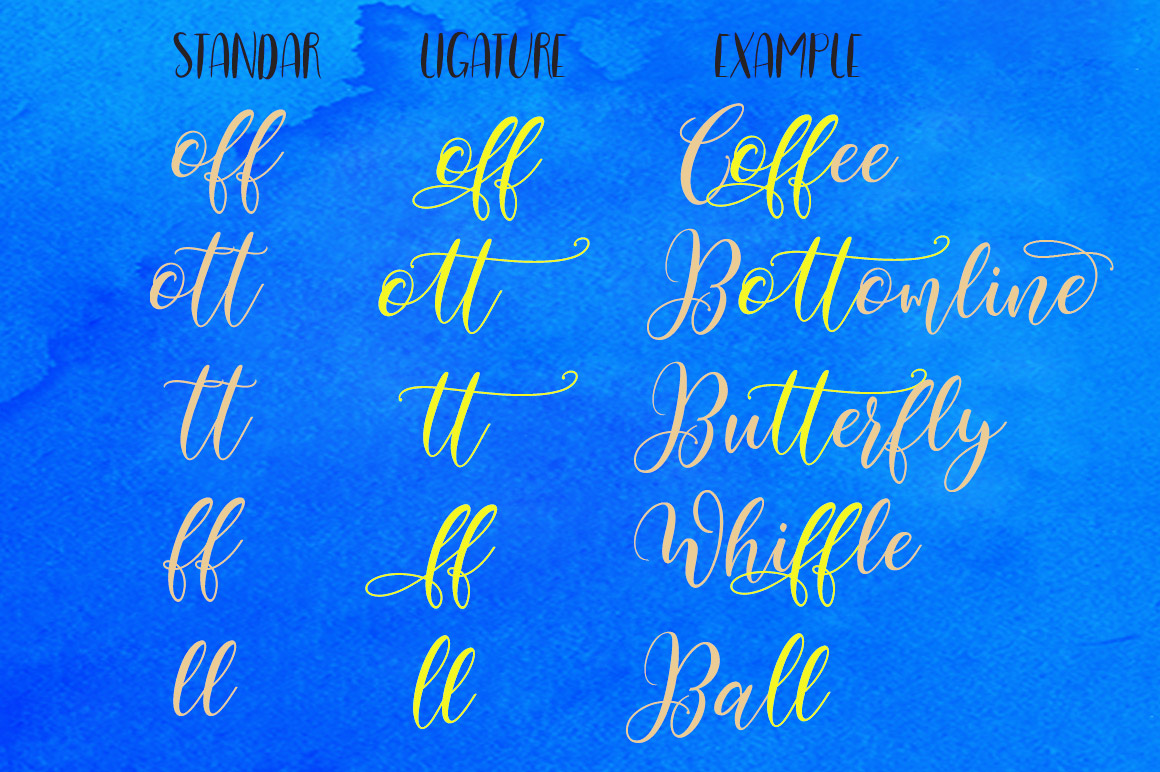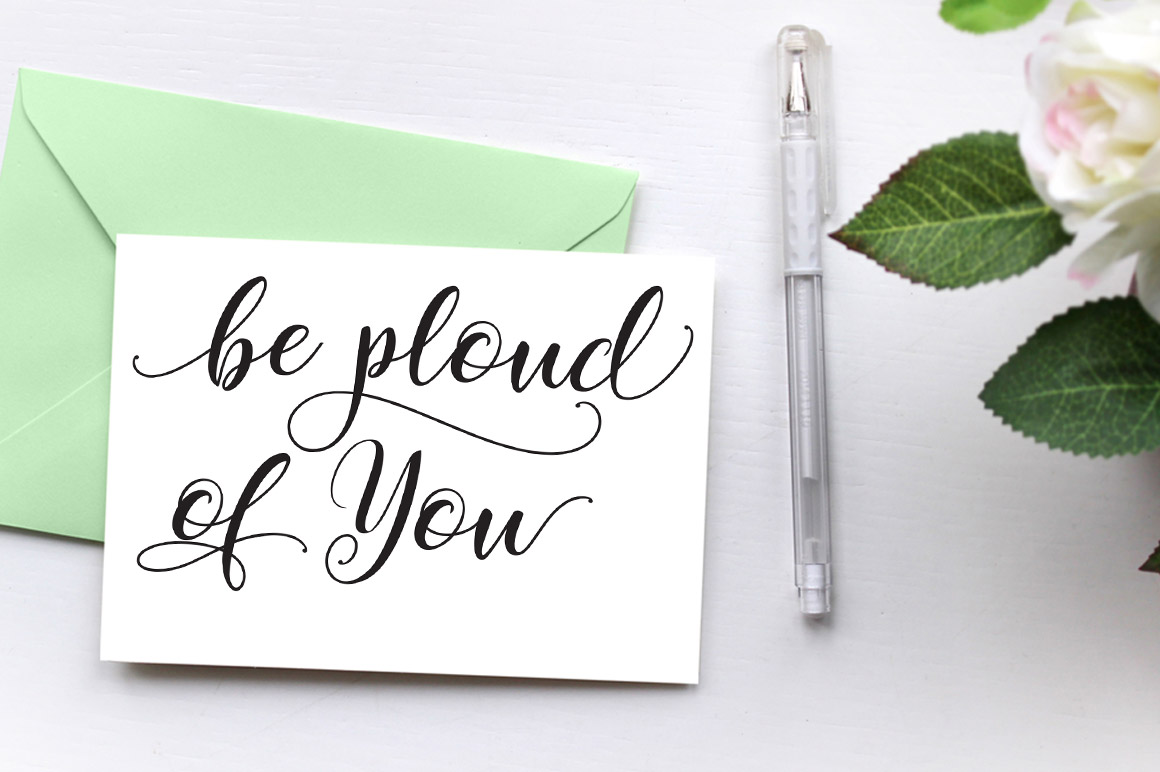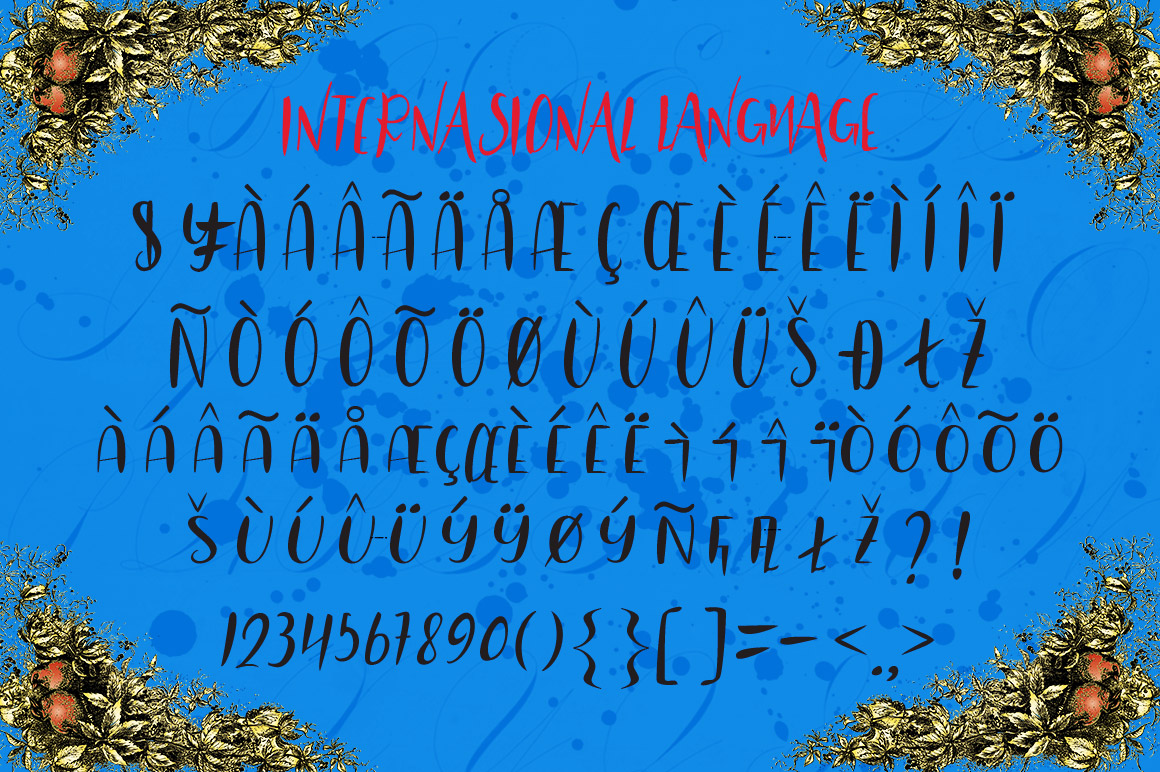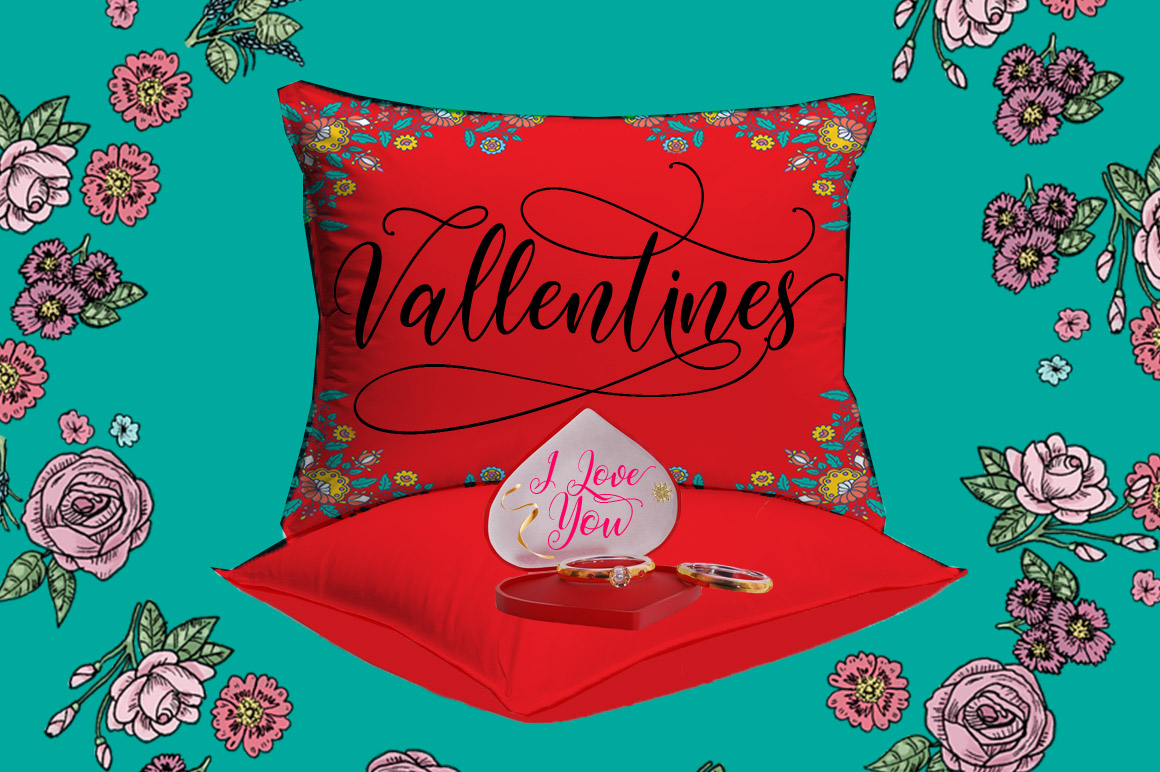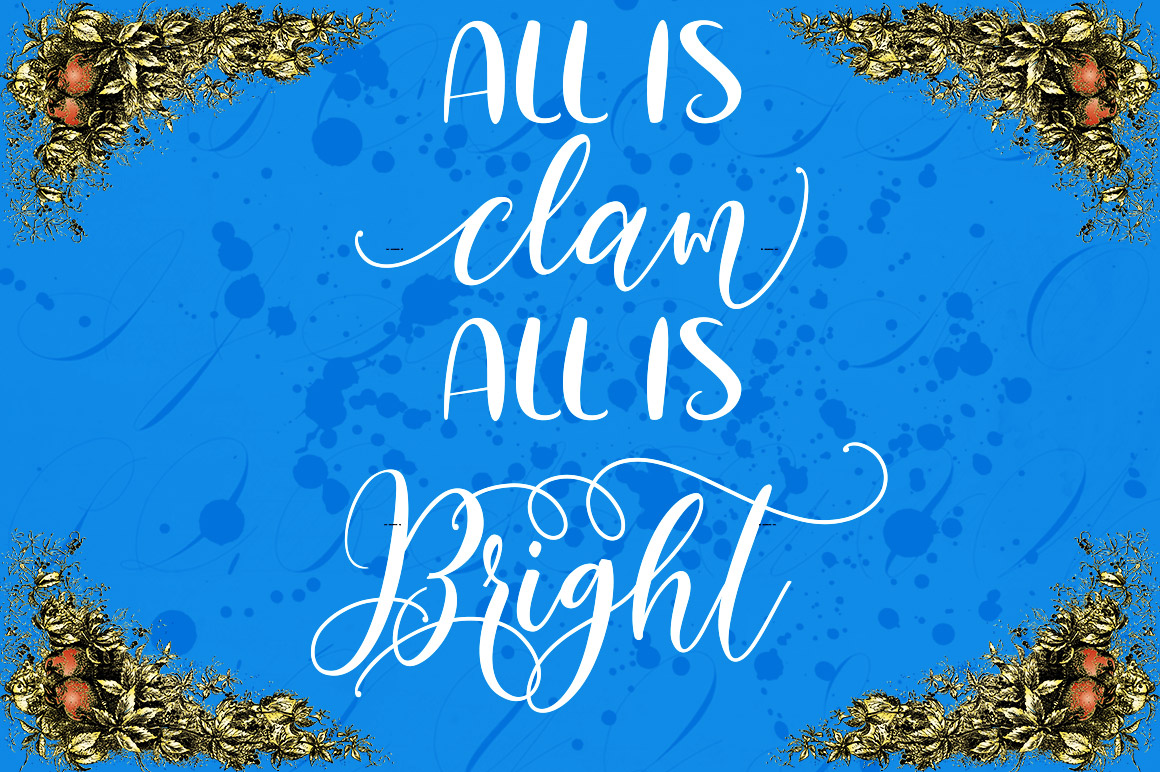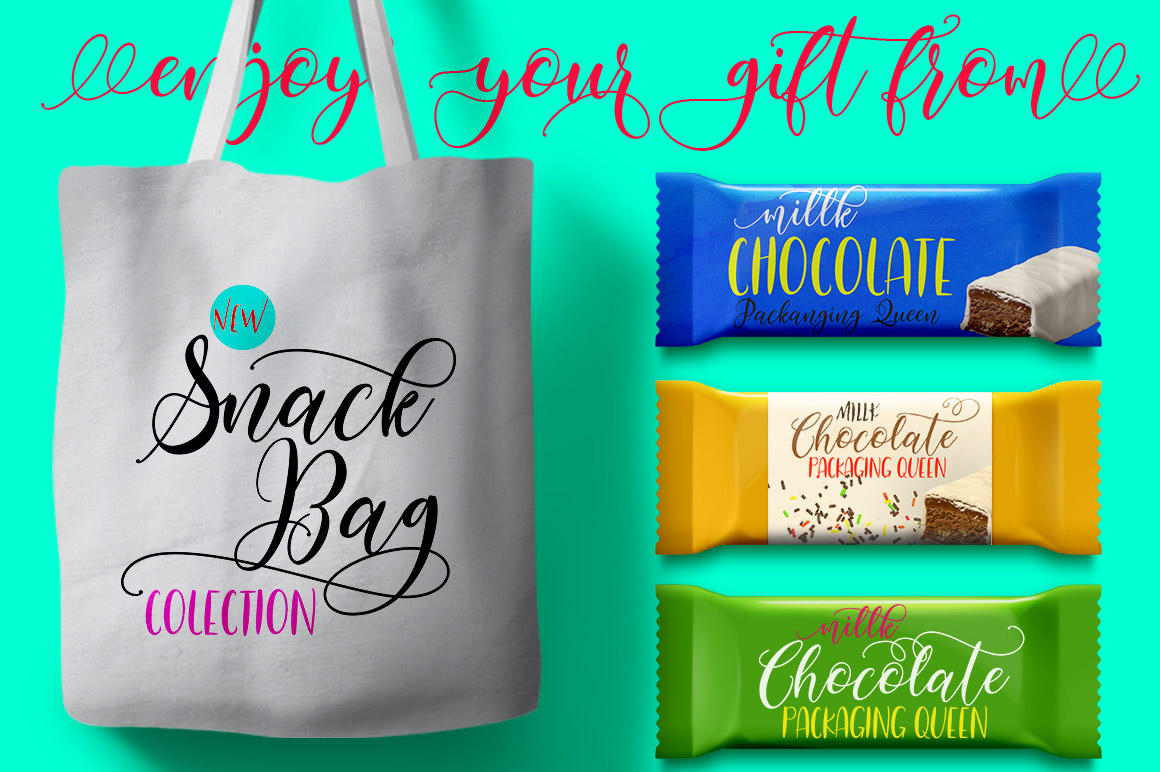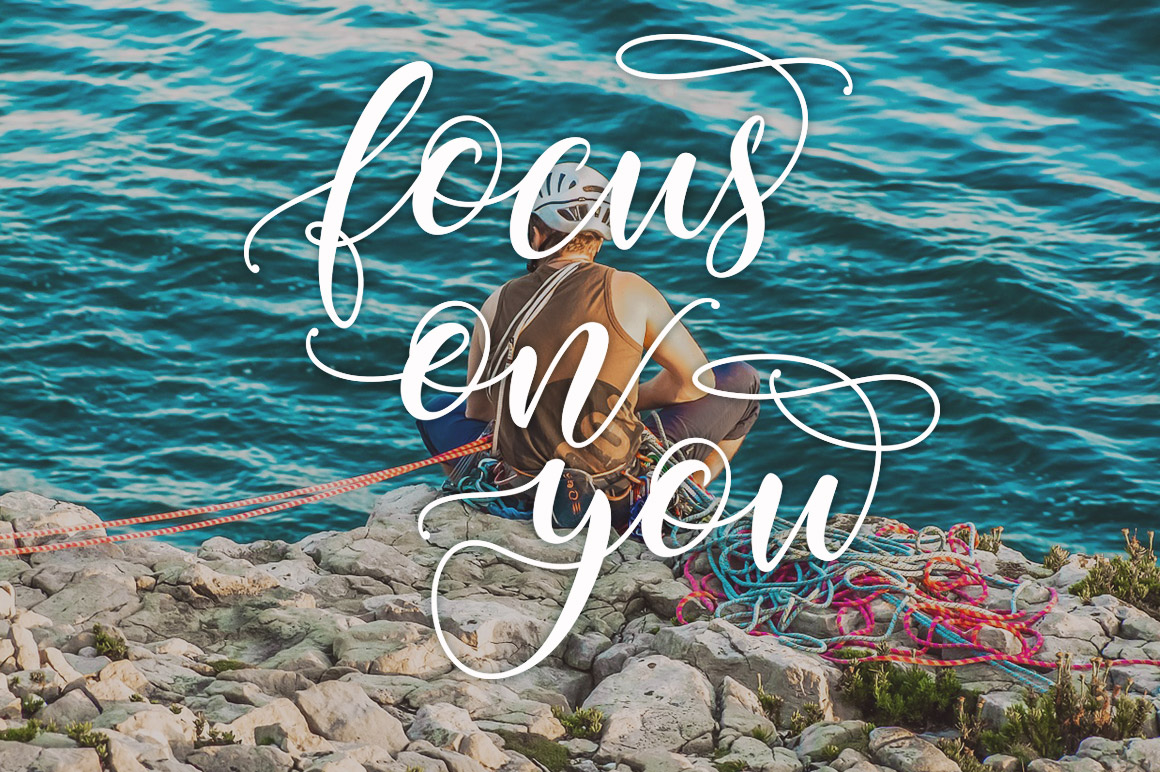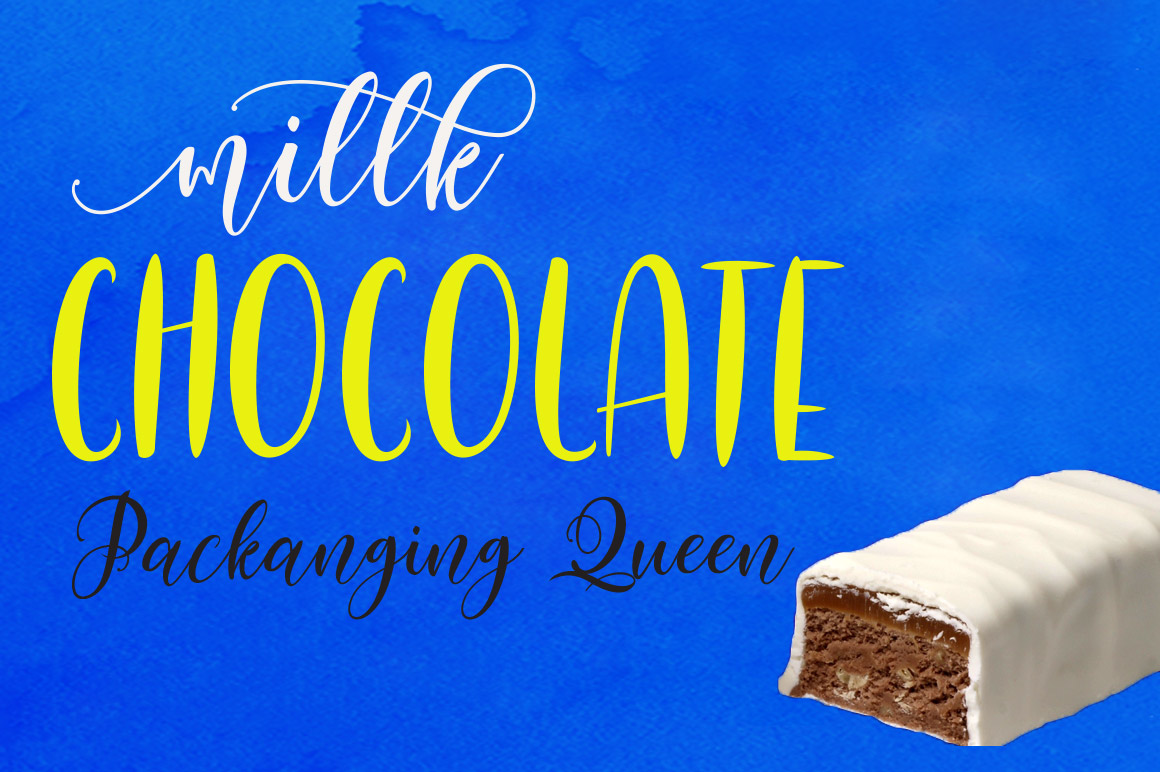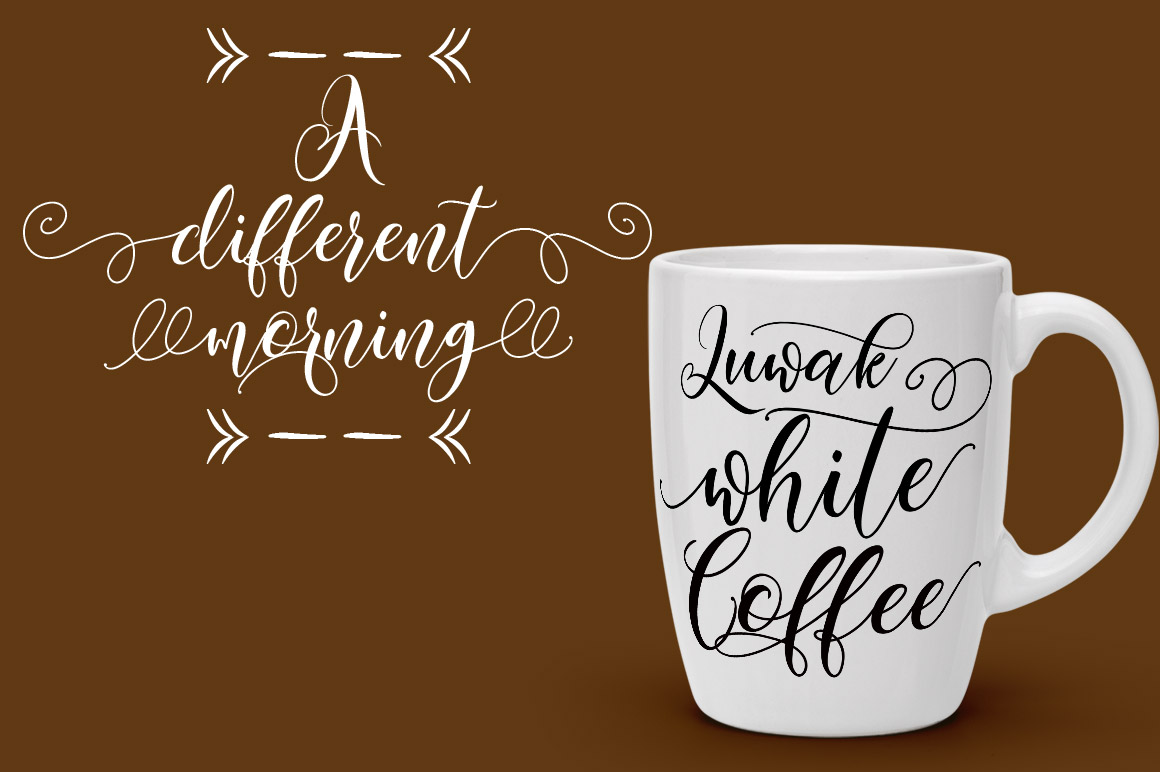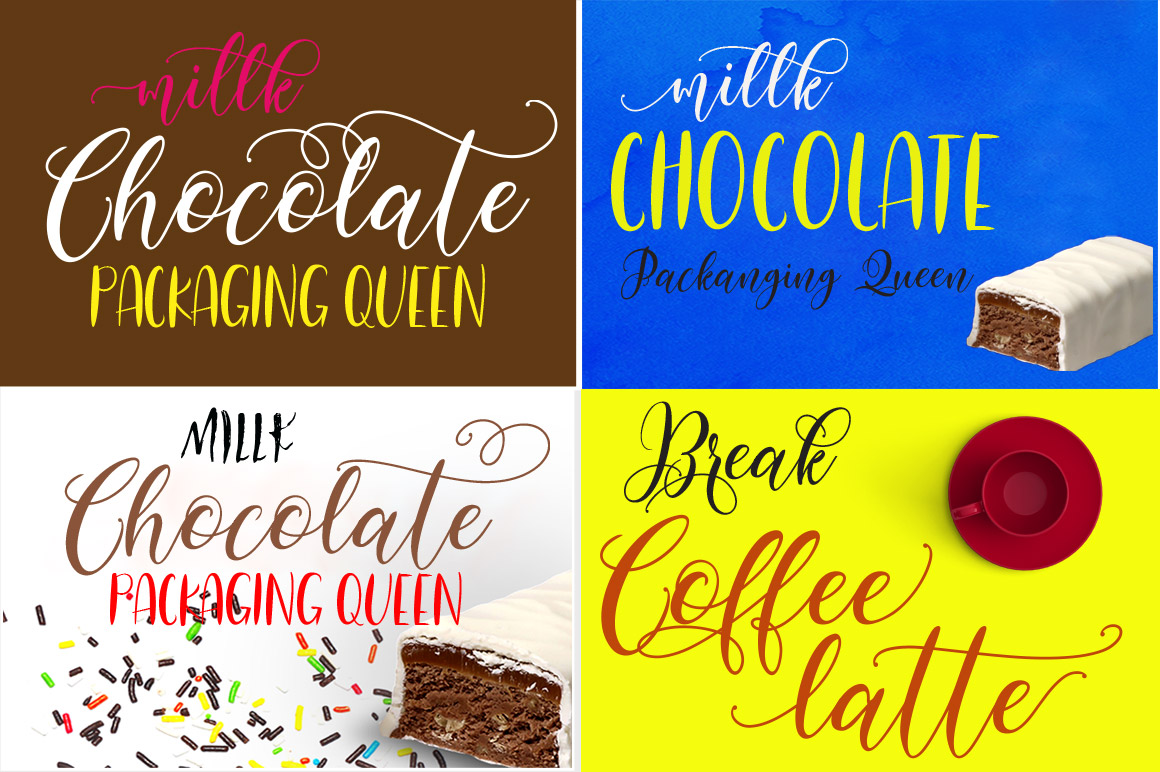
Bottomline Font
About Bottomline Font
Bottomline is a wonderful and gorgeous calligraphy font, crafted with the intent of being complementary to a wide range of art and design styles. Works wonderfully with Little Star – a sans serif, handwritten opposing font – for intriguing contrast.